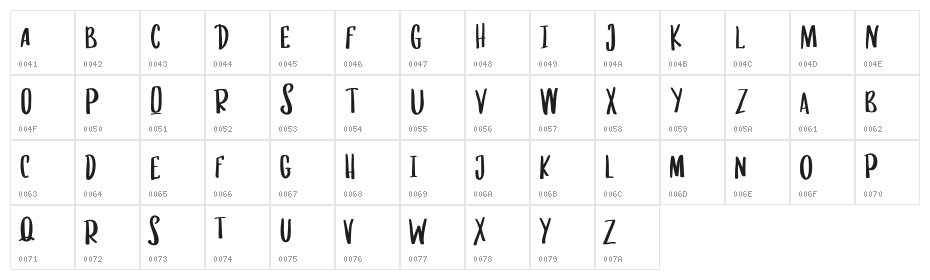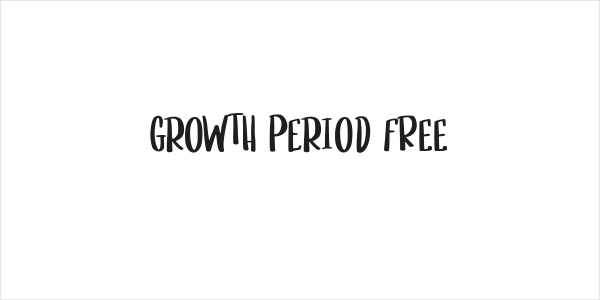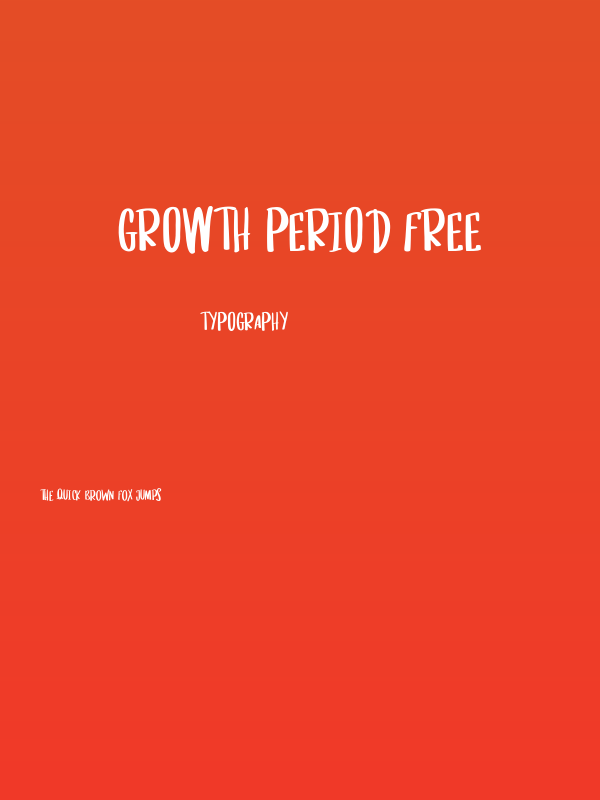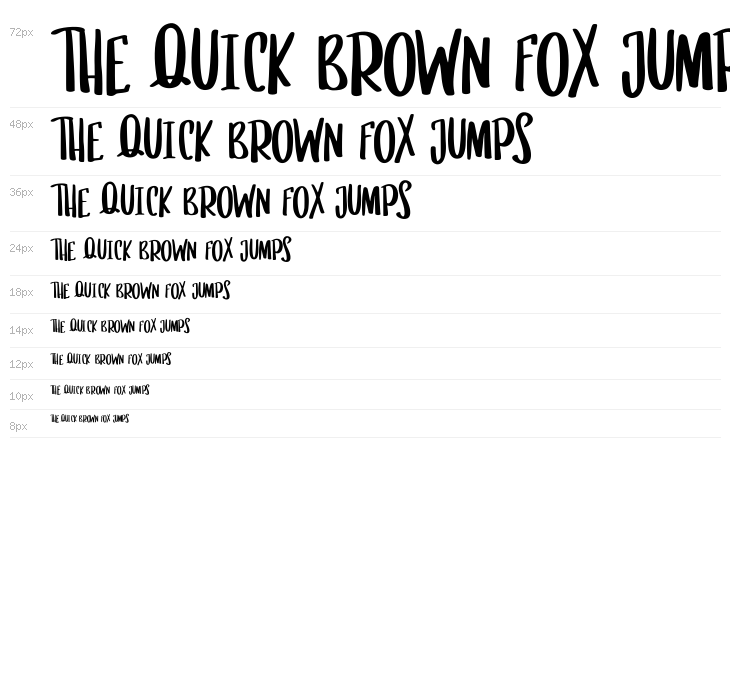
Growth Period FREE Font
Growth Period FREE Description
This font features a playful and dynamic handwritten style, characterized by its bold and slightly irregular letterforms. The strokes are thick and expressive, giving it a lively and energetic appearance. Each character has a unique flair, with varying angles and curves that add to its whimsical charm. The font maintains a consistent weight throughout, ensuring readability while still conveying a sense of fun and creativity. Its casual and informal nature makes it suitable for projects that aim to capture attention and convey a friendly, approachable tone.
Overall StylePlayful
Proposed ProjectsIdeal for children's books, greeting cards, playful branding, and social media graphics.